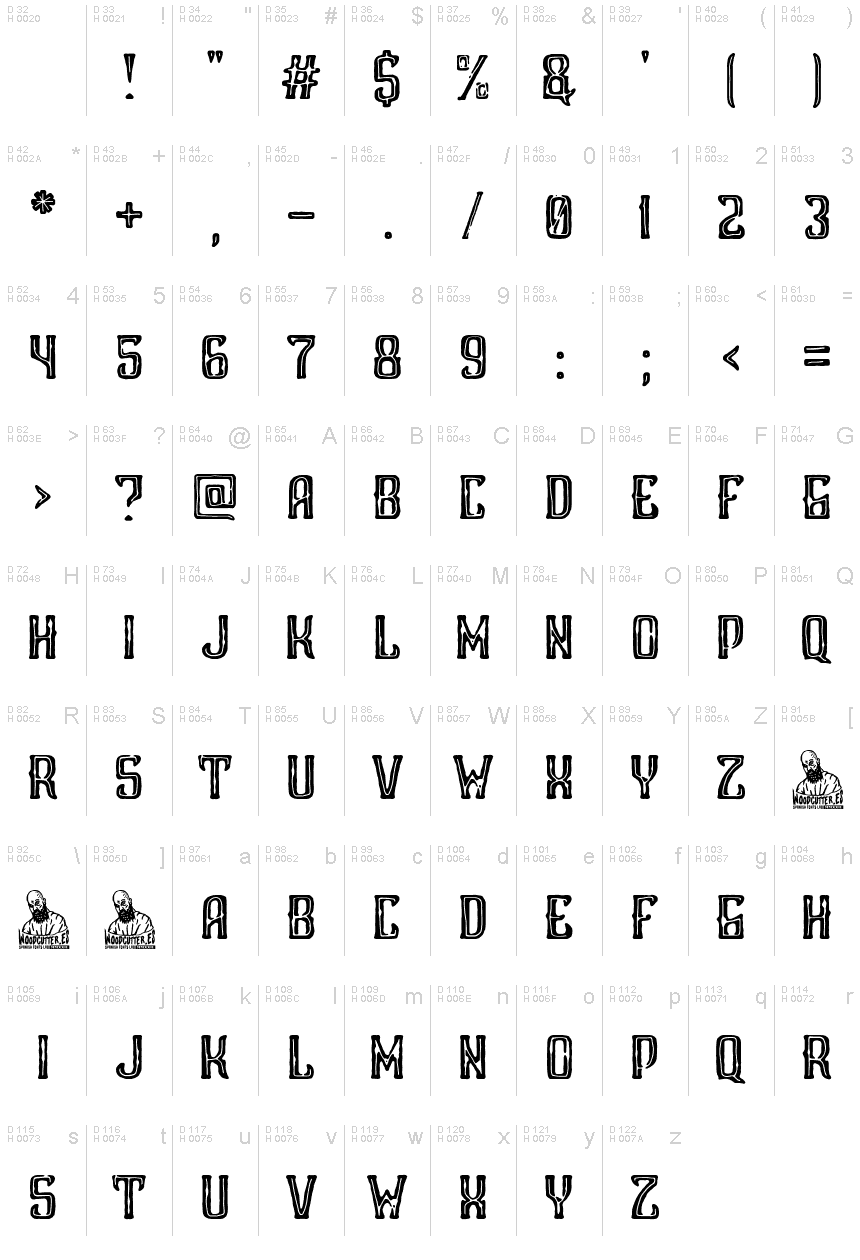
The Master of Drama
The Master of Drama, designed by Woodcutter, is a captivating gothic font with an eroded touch. Its semi-condensed width adds a unique aesthetic to any project.
With its dramatic and mysterious vibe, this font is perfect for movie posters, book covers, and theatrical event promotions. Bring your designs to life with The Master of Drama and captivate your audience with its visual intensity.
Let this font be the star of the show in your next creative endeavor.
The Master of Drama.